Gothic and Blackletter fonts have a fascinating past, full of artistry and tradition. From medieval manuscripts to early printed books, these fonts shaped the visual culture of their time. Exploring A Brief History of Gothic & Blackletter Fonts helps us understand their intricate designs and cultural significance.
Today, designers continue to draw inspiration from this legacy, making A Brief History of Gothic & Blackletter Fonts essential knowledge for anyone interested in typography and the evolution of written style.
A Brief History of Gothic & Blackletter Fonts
A Brief History of Gothic & Blackletter Fonts takes us back to medieval Europe, where these intricate and dramatic typefaces first appeared. Originally used in manuscripts and religious texts, they quickly became symbols of tradition and craftsmanship.
Over time, Gothic and Blackletter fonts influenced printing, signage, and artistic design, leaving a lasting mark on typography. Exploring A Brief History of Gothic & Blackletter Fonts helps us appreciate their enduring beauty and cultural significance.
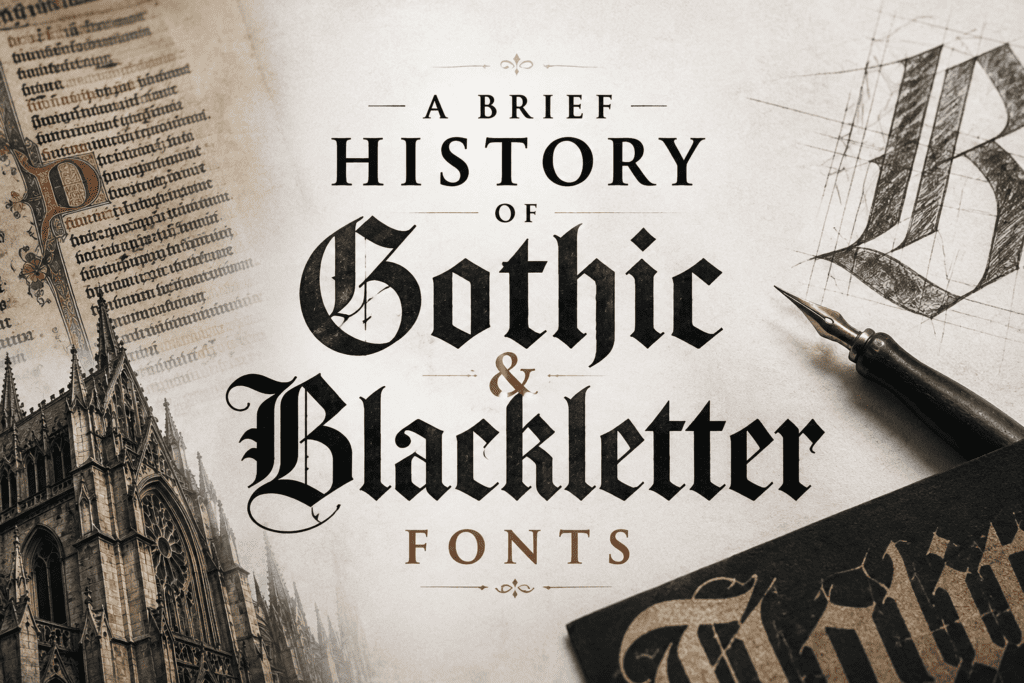
Blackletter Typeface History
The Blackletter typeface history dates back to Western Europe during the 12th century, where it emerged as a distinctive writing style used in manuscripts and religious texts. Known for its bold, angular strokes and decorative appearance, Blackletter became one of the most recognizable forms of medieval typography.
The Blackletter typeface history continued to evolve with the invention of the printing press, influencing early printed books and shaping the development of modern type design. Today, these historic fonts remain popular for projects that seek a traditional, elegant, or Gothic aesthetic.
Blackletter Gothic Font
The Blackletter Gothic Font is one of the most iconic and recognizable typefaces in the history of typography. With its sharp, angular lines and intricate detailing, it evokes a sense of tradition, formality, and historical depth.
Originally used in medieval manuscripts and early printed books, the Blackletter Gothic Font has a distinct visual style that stands out in modern design, branding, and artistic projects. Its dramatic appearance makes it perfect for headlines, logos, and any project that wants to convey elegance, authority, and a touch of historical charm.
Best Blackletter Fonts
Blackletter fonts are known for their bold, intricate, and historic style. Choosing the best Blackletter fonts can give your designs a classic, dramatic, or medieval feel. They are perfect for logos, posters, and artistic projects that need a touch of elegance.
When searching for the best Blackletter fonts, consider readability alongside style. These fonts can transform ordinary text into striking visual statements. From modern digital typefaces to traditional styles, the options are endless for creative expression.
Historical Blackletter Fonts
Historical Blackletter Fonts have a rich legacy dating back to the medieval period. Known for their ornate and bold designs, they were widely used in manuscripts, religious texts, and early printed books.
Even today, A Brief History of Gothic & Blackletter Fonts inspire modern designers, adding a touch of tradition and elegance to logos, posters, and digital projects. Their unique style continues to make a strong visual impact.
The Origins of Blackletter Typefaces
The Origins of Blackletter Typefaces can be traced back to the 12th century in Europe, where scribes developed these intricate letterforms for manuscripts and religious texts. Their sharp, angular strokes and dense appearance made them ideal for copying lengthy documents with precision and style.
Over time, the origins of Blackletter typefaces influenced early printing and book design, becoming a hallmark of Gothic typography. Today, these historic typefaces are celebrated for their artistic complexity and continue to inspire modern graphic design and branding.
The Diverse Styles of Blackletter
Blackletter fonts are known for their bold, intricate designs, and historical charm. Exploring the diverse styles of Blackletter reveals how each variation reflects different eras and cultural influences. From Textura to Fraktur, every style carries a unique personality.
Understanding A Brief History of Gothic & Blackletter Fonts helps designers choose the perfect typeface for their projects. Whether for modern branding or historical recreation, these fonts offer elegance, tradition, and versatility in every letterform.